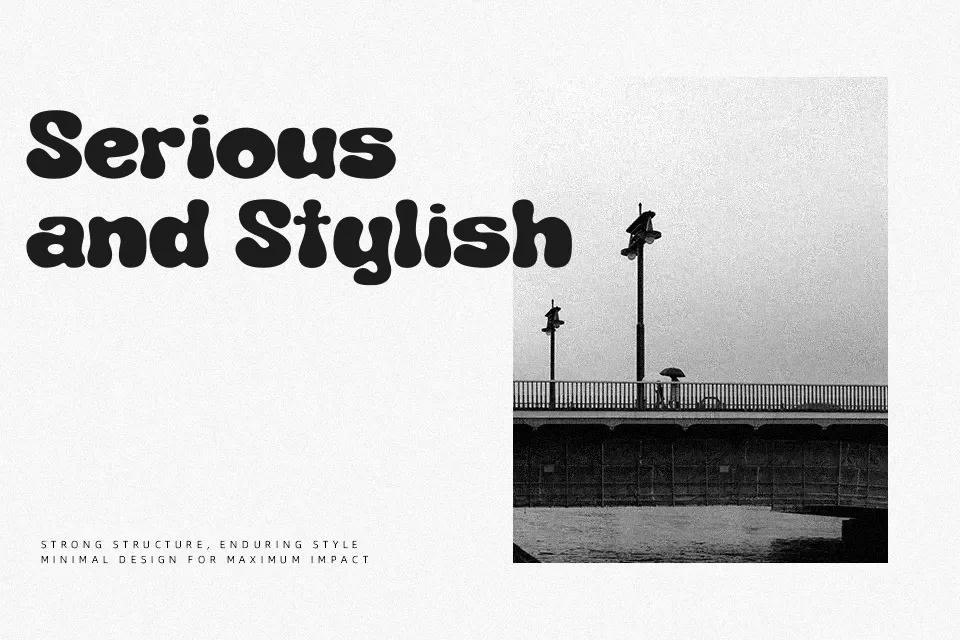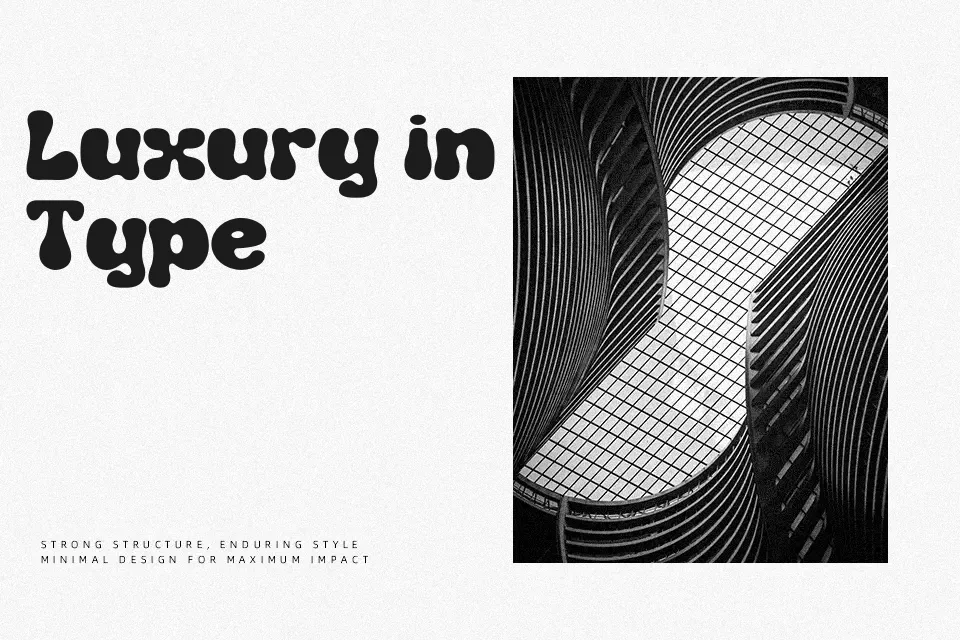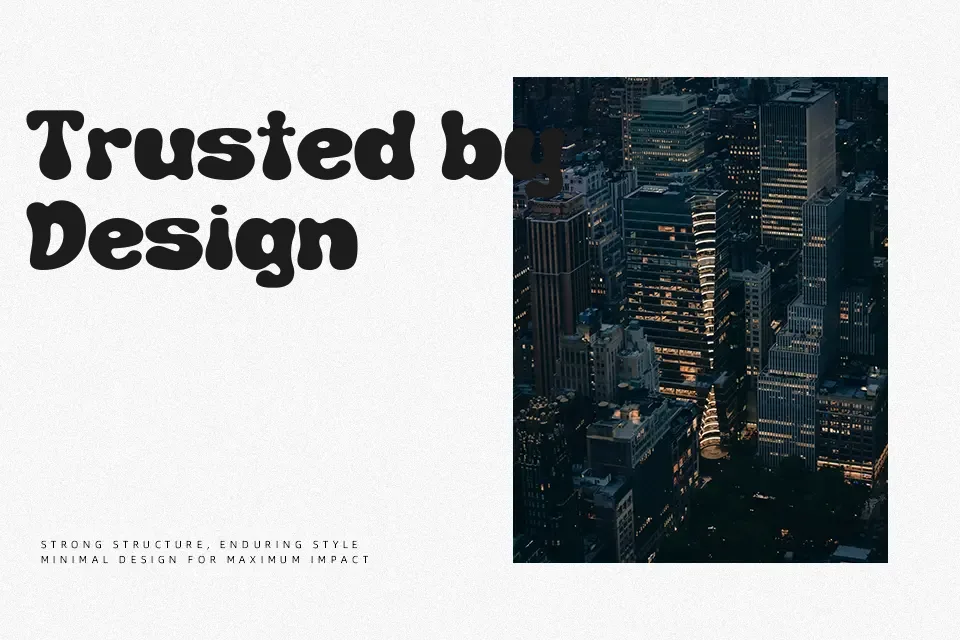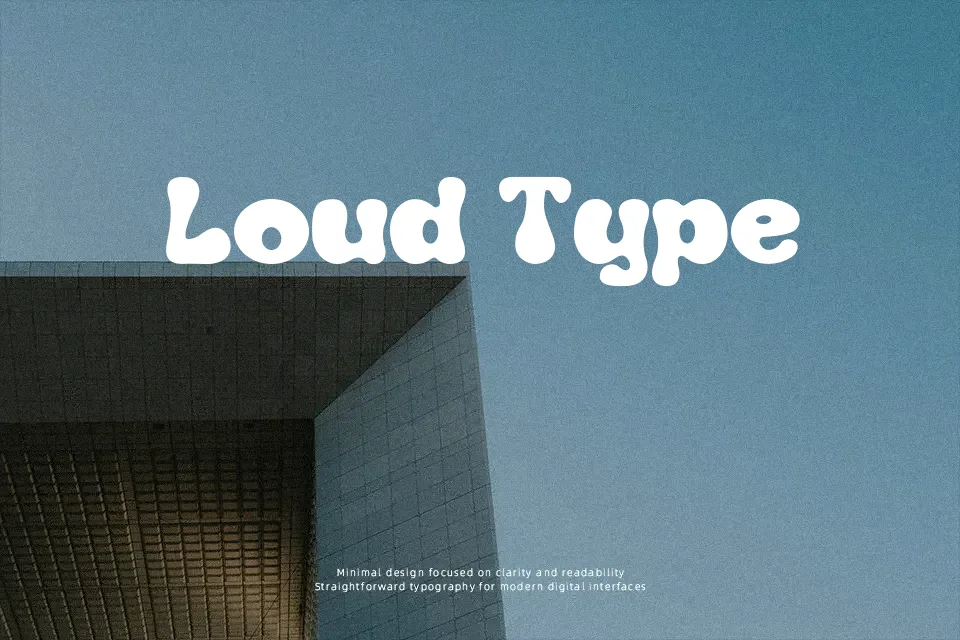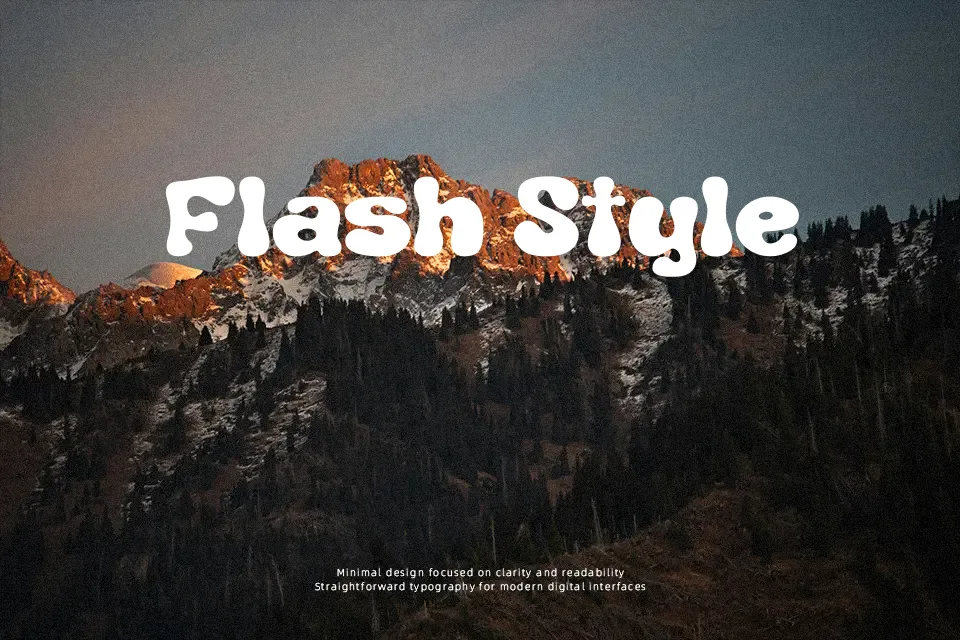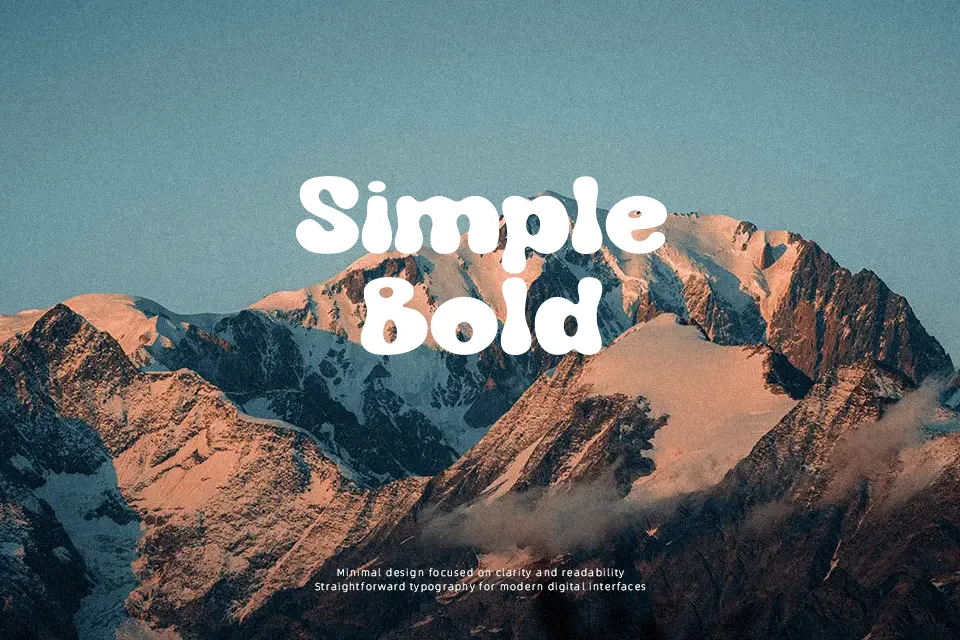
Benomout Font
Benomout carries the visual weight of a retro display typeface — thick strokes, expressive letterforms, and a deliberate decorative structure that leans into nostalgia without feeling overdone. The font suits poster headlines, product packaging, and social media visuals where personality matters more than neutrality. Its groove-inflected style works well for music-related branding, event flyers, and editorial headers with a throwback theme. That said, Benomout is clearly not built for extended reading — body text or legal copy will become strained fast, and its strong character makes it a poor fit for minimalist or corporate layouts. Use it as an accent or display piece, not a workhorse.
– Retro-themed poster and event flyer headlines
– Music or festival branding
– Social media graphics needing strong visual personality
– Packaging designs with a vintage or groovy feel
– Body text or paragraph-length copy
– Corporate or professional business documents
– Minimalist UI and app design
– Formal invitations requiring elegance
Perfect for branding, headline, and music, with a bold and decorative style.